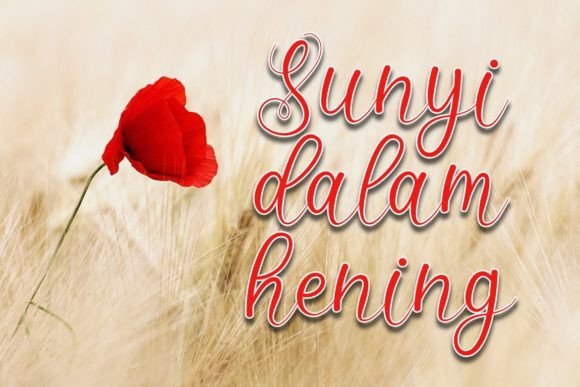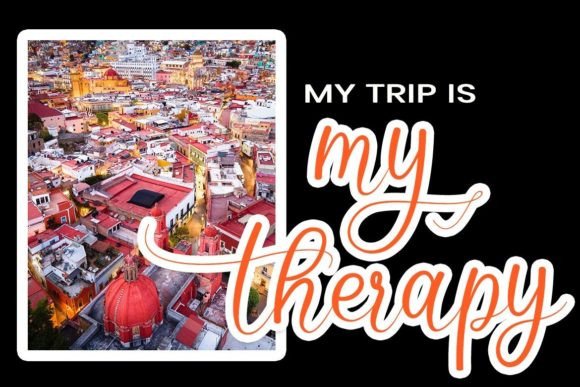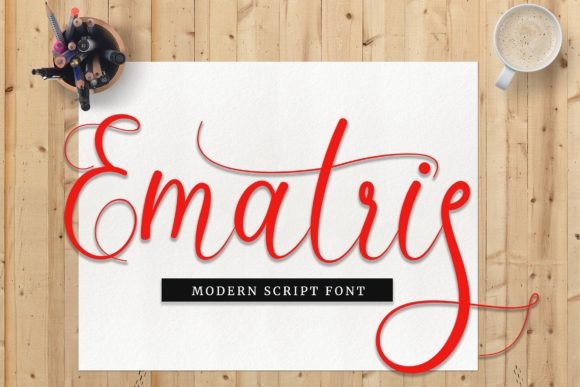
Ematris Font: Elevate Your Designs with Elegant Curves
In the world of typography, fonts play a crucial role in conveying messages, evoking emotions, and creating visual identities. For designers, crafters, and anyone looking to add a touch of elegance to their projects, the Ematris font is a fantastic choice. This modern script font, designed with beautiful curves in mind, is suitable for various purposes such as quotes, advertisements, weddings, and more.
The Beauty of Ematris Font
Ematris is a stunning script font that boasts fluid, connected letters, perfect for creating visually appealing text. Its elegant curves and refined lines make it an excellent choice for designs that require a touch of sophistication. Whether you’re working on a wedding invitation, a fashion brand’s logo, or a motivational quote, Ematris font is sure to elevate your design.
Key Features of Ematris Font
- Modern Script Style: Ematris font features a modern script style with beautiful curves, making it perfect for designs that require a touch of elegance.
- Versatile: This font is suitable for various purposes, including quotes, advertisements, weddings, and more.
- Easy to Read: Despite its elegant curves, Ematris font is easy to read, making it perfect for body text and headlines.
- Highly Legible: The font’s clear and refined lines ensure high legibility, even at smaller font sizes.
Uses of Ematris Font
Ematris font is an incredibly versatile font that can be used in a wide range of design projects, including:
- Wedding Invitations: Add a touch of elegance to your wedding invitations with Ematris font.
- Advertisements: Use Ematris font to create eye-catching advertisements that grab attention.
- Quotes and Posters: Ematris font is perfect for creating inspirational quotes and posters.
- Logos and Branding: Use Ematris font to create a unique and memorable logo for your brand.
- Social Media Graphics: Elevate your social media graphics with Ematris font.
Tips for Using Ematris Font
To get the most out of Ematris font, here are some tips to keep in mind:
- Pair with Simple Fonts: Pair Ematris font with simple fonts to create a beautiful contrast.
- Use for Headlines and Titles: Use Ematris font for headlines and titles to add a touch of elegance.
In conclusion, Ematris font is a stunning modern script font that is perfect for designers, crafters, and anyone looking to add a touch of elegance to their projects. Its beautiful curves, versatility, and high legibility make it an excellent choice for various design projects. Whether you’re working on a wedding invitation, advertisement, or social media graphic, Ematris font is sure to elevate your design.